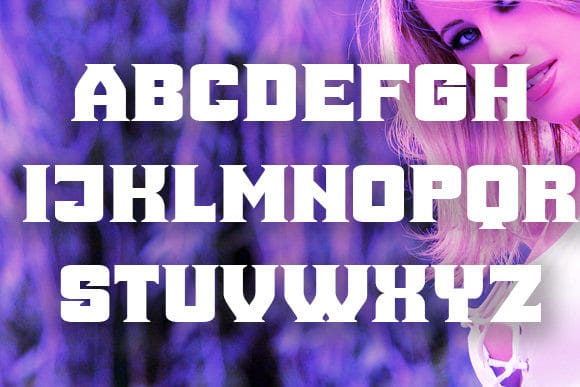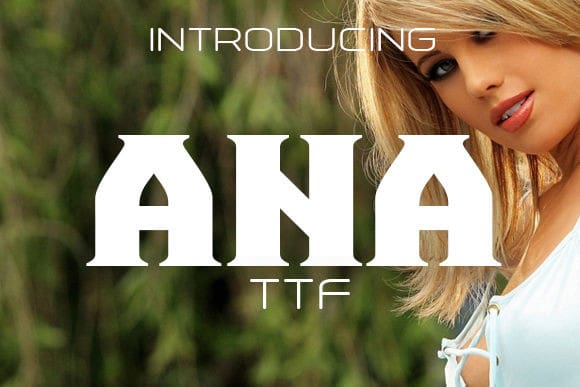
Ana Font
Ana Font is a modern font in a Gothic style. The letters have great readability and give any design a striking look. It will look great on any poster, banner, or t-shirt.